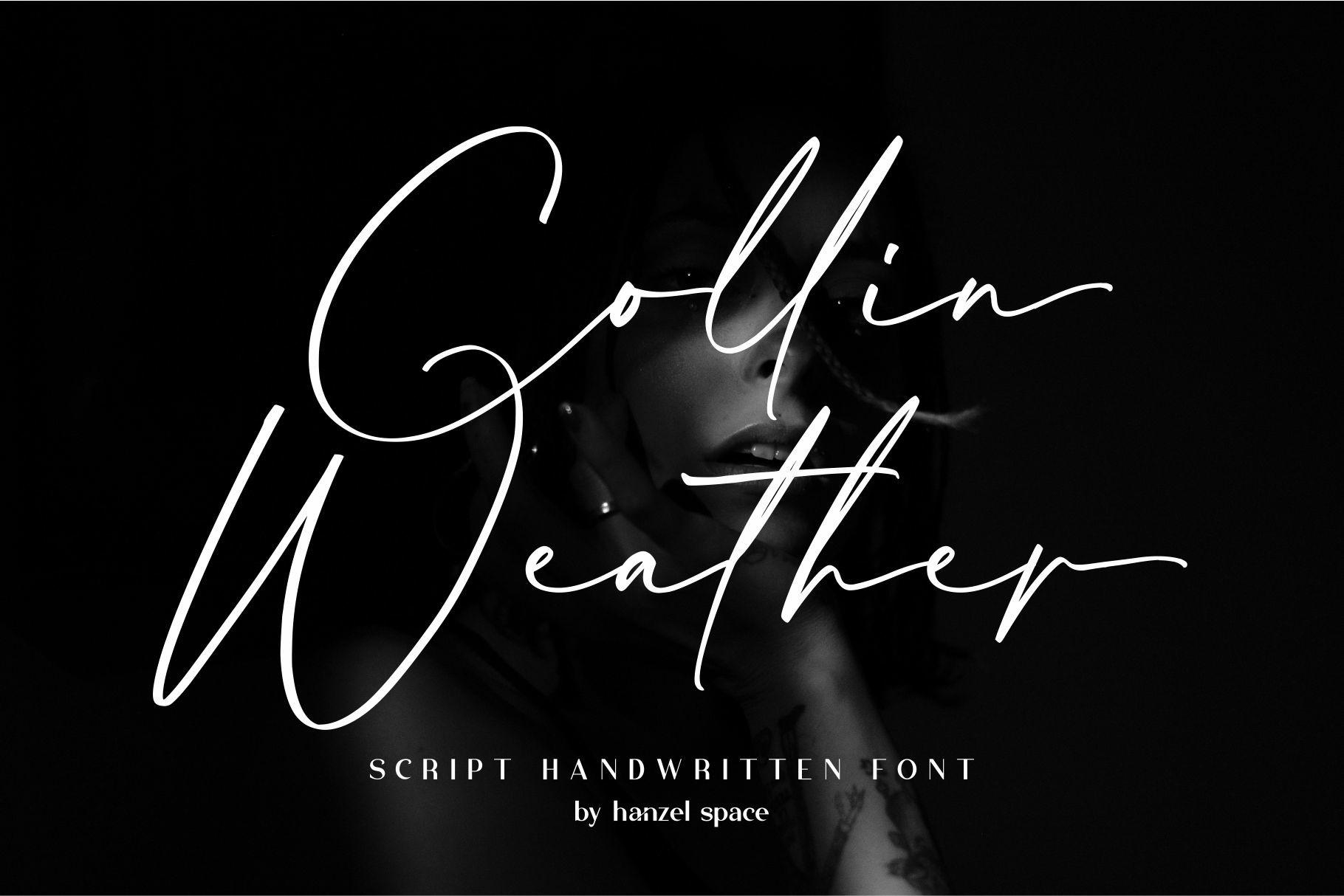
Collin Weather Font Description
Collin Weather is a lovely and delicate script font that exudes elegance and class. This font was particularly crafted for those who need a beautiful and refreshing look to their designs. It is also PUA encoded which means you can access all of the amazing glyphs and ligatures with ease!